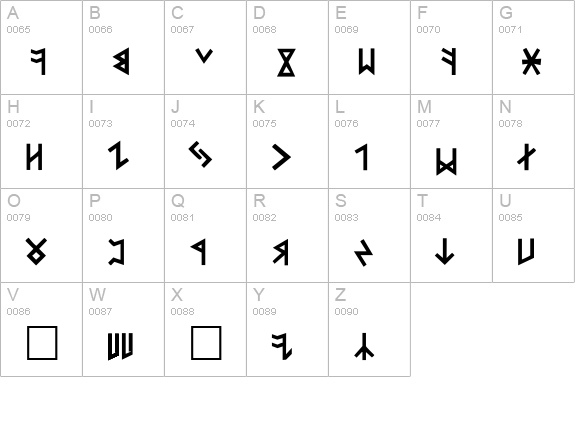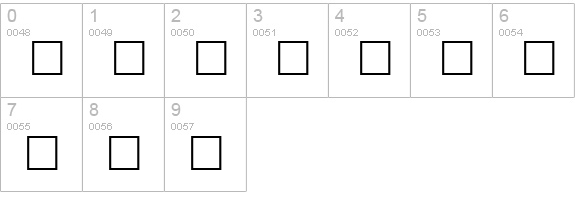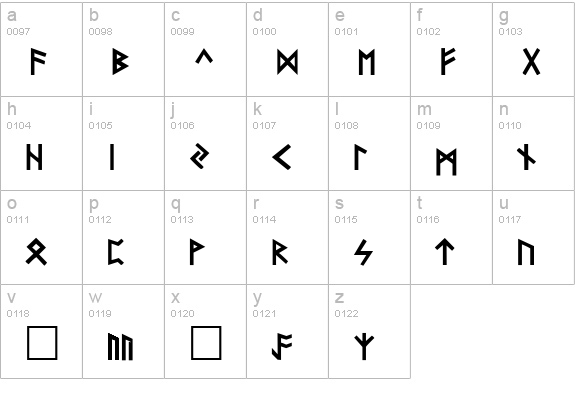
ksa:g Regular Font Details
ksa:g Regular is the standard, neutral variant in the ksa:g typeface family \xE2\x80\x94 well suited to general body text, paragraphs, and standard typographic work.